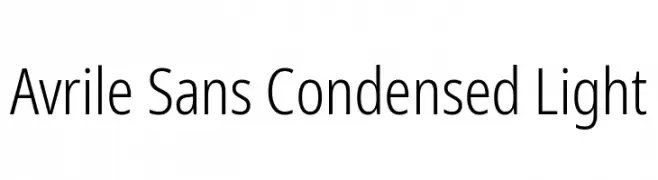
A clean, modern sans-serif font with a condensed style.
A modern, condensed sans-serif font with medium weight and low contrast.
A modern, condensed sans-serif font with a light weight and low contrast.